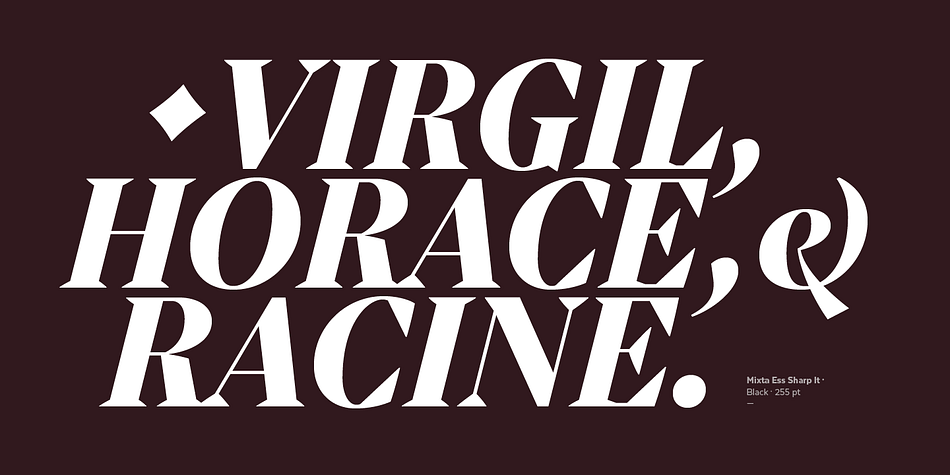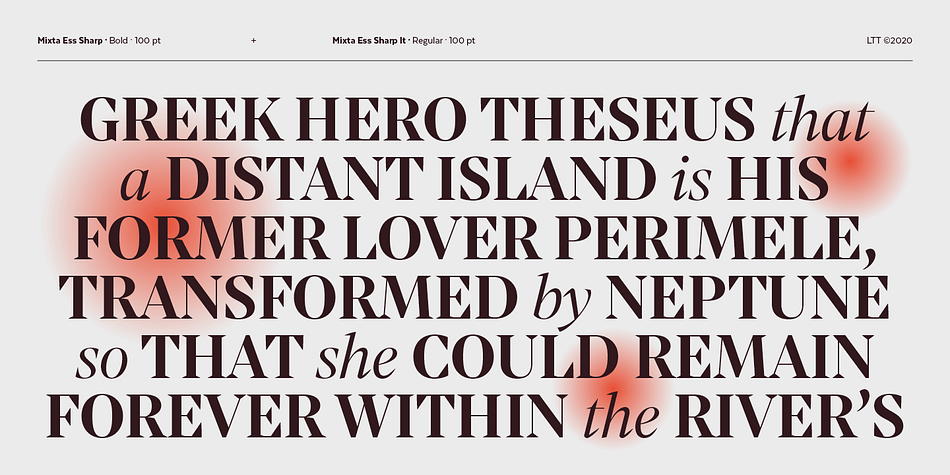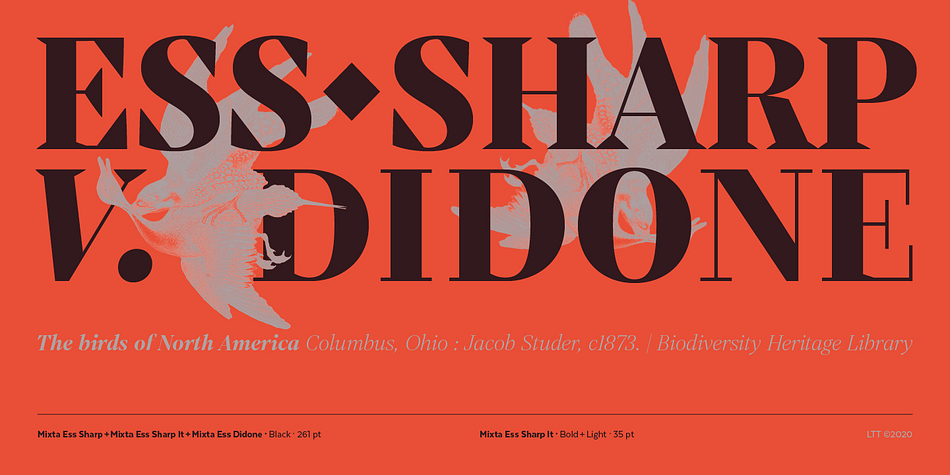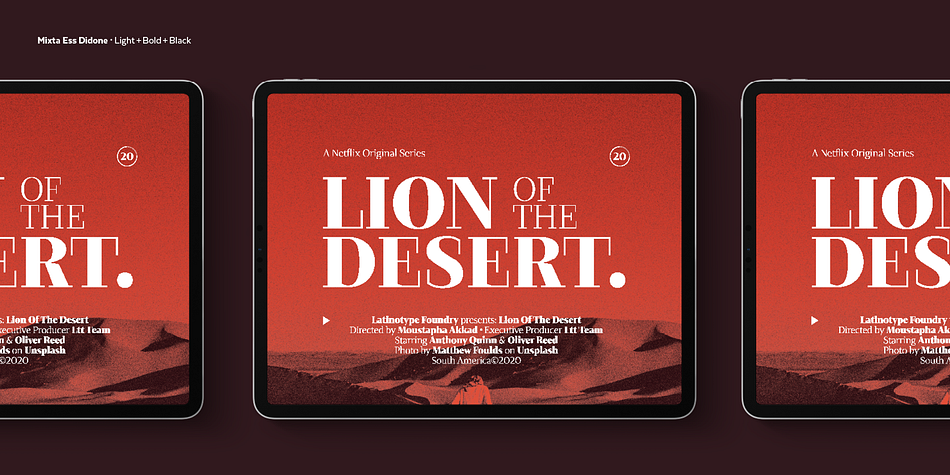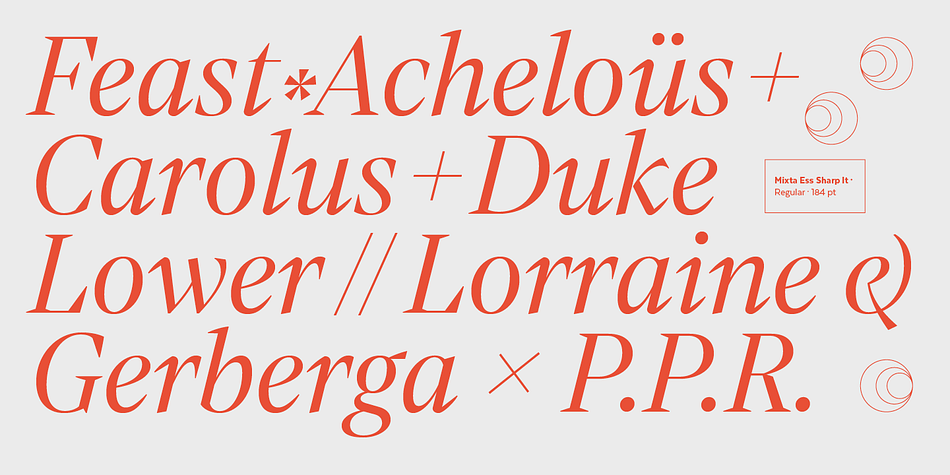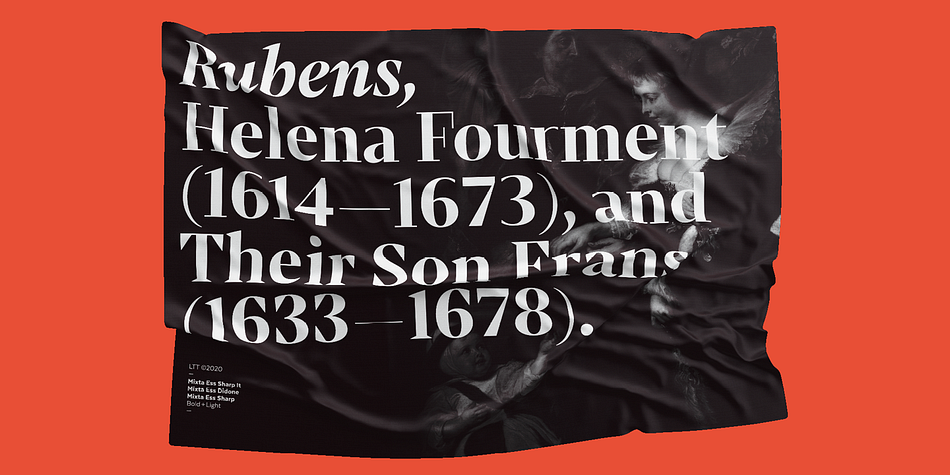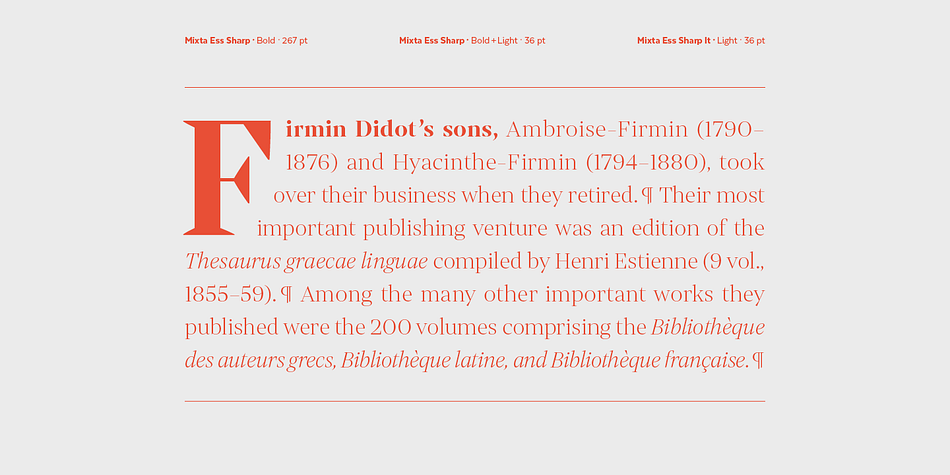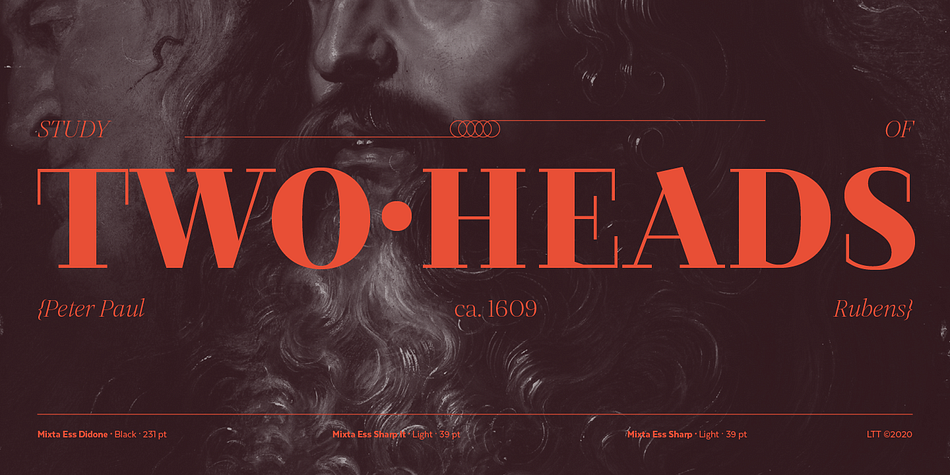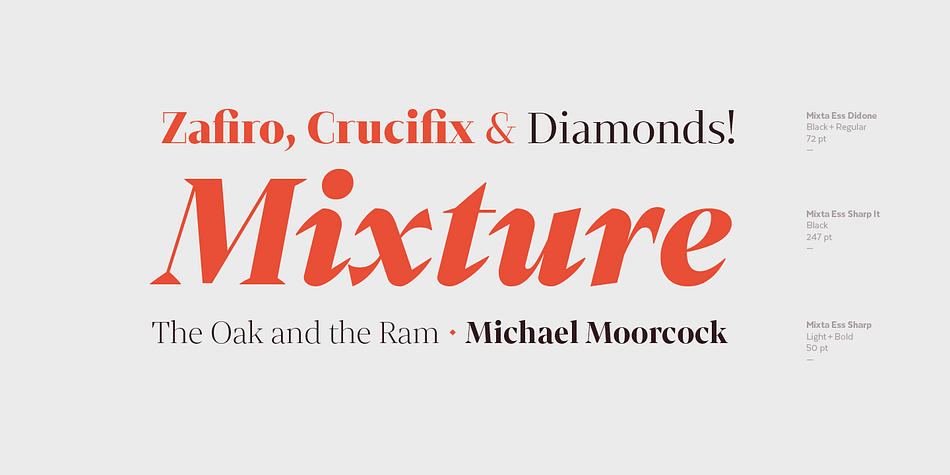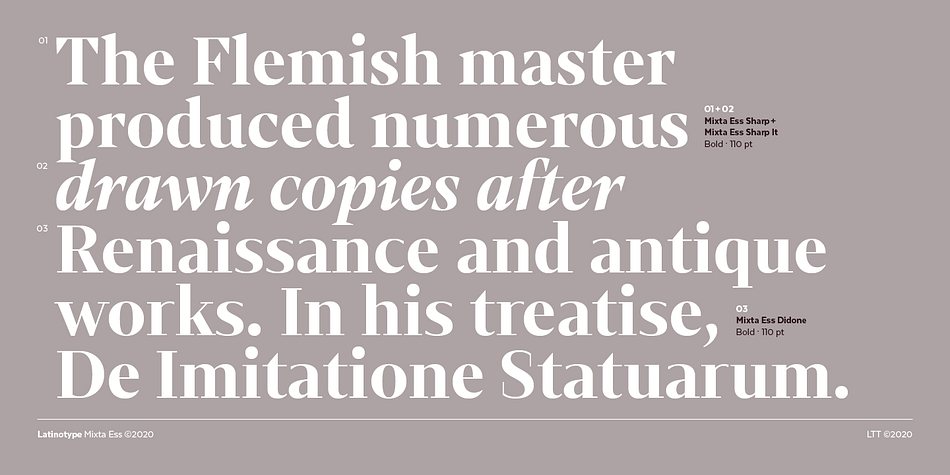
Designed by Rodrigo Fuenzalida, Mixta Ess is a serif font family. This typeface has twelve styles and was published by Latinotype.
Mixta Essential is a contemporary sans-serif typeface with characteristic and defined features. This font was inspired by the idea of mixing different types of terminals in order to give the font a singular appearance. Its design is composed of diverse styles such as Didone and classic typefaces as well as current font trends.
Mixta Essential was specially designed for branding, advertising, Tv and social media.